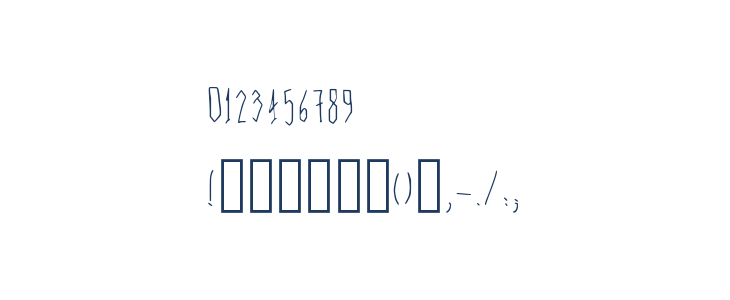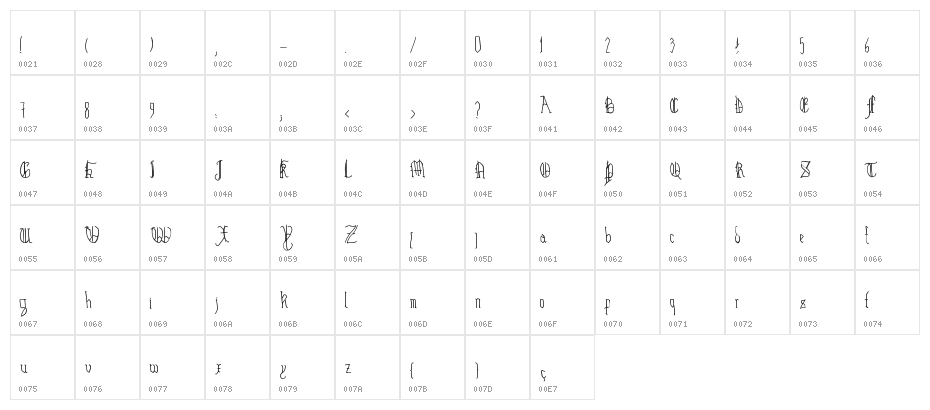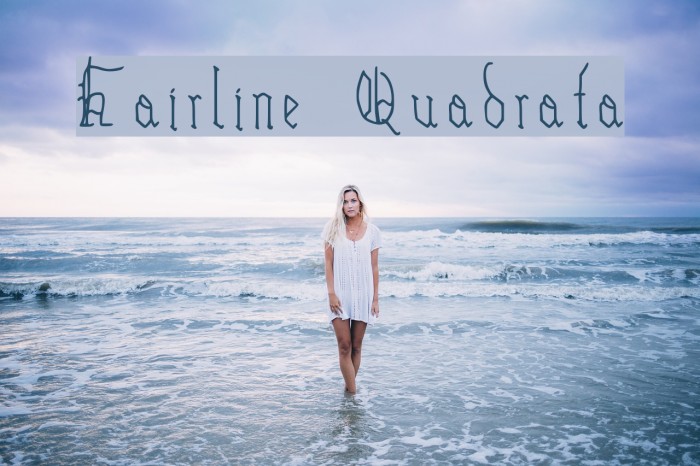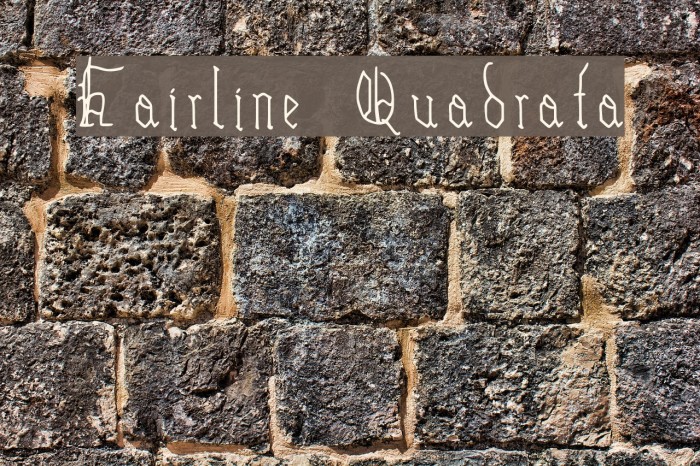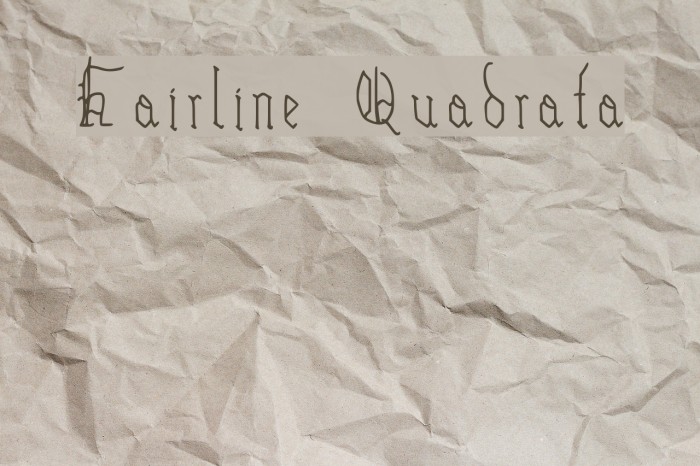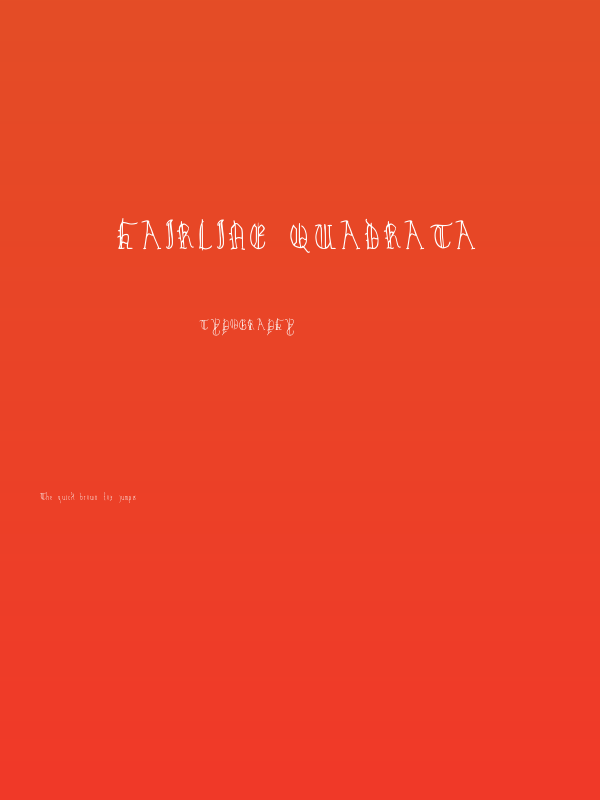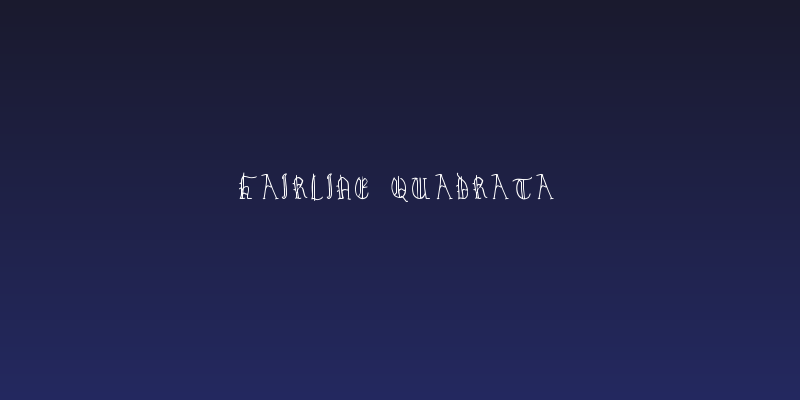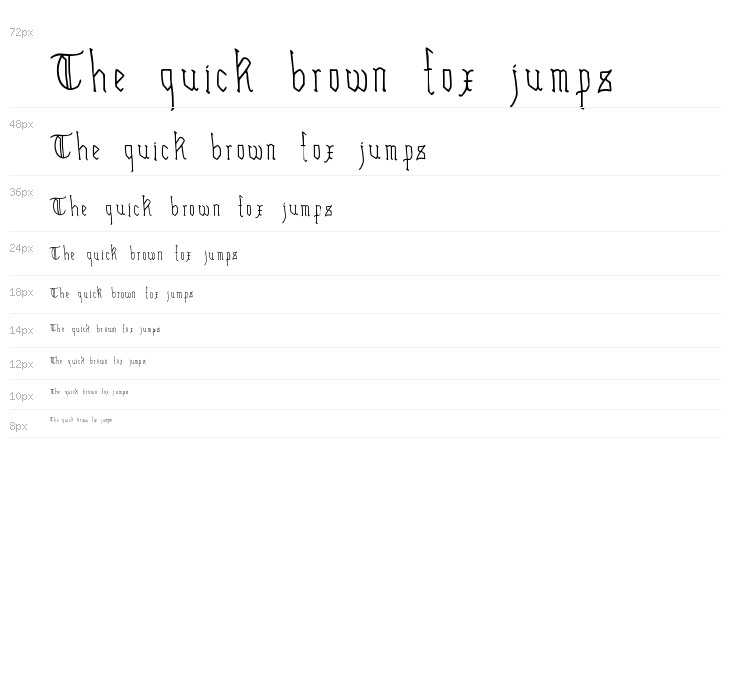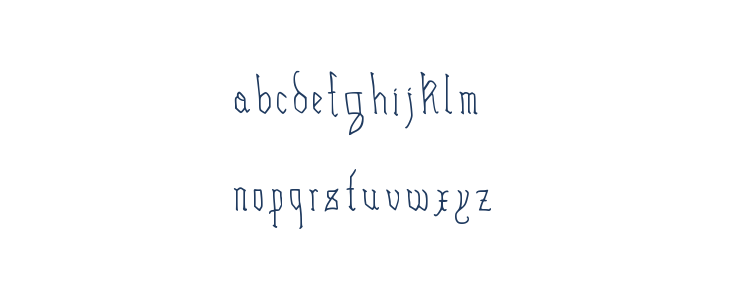
Hairline Quadrata Font
Hairline Quadrata Description
This font exhibits a distinctive blackletter style with a modern twist, characterized by its sharp, angular lines and intricate detailing. The uppercase letters are bold and commanding, with a gothic influence that is evident in the pointed serifs and elaborate curves. The lowercase letters maintain a consistent style, offering a harmonious balance between readability and decorative flair. Numbers and special characters are designed to complement the overall aesthetic, making them suitable for a variety of creative applications. The font's unique design is both eye-catching and versatile, ideal for projects that require a touch of elegance and historical charm.
Use CaseLogos, Headlines, Decorative text
Proposed ProjectsIdeal for branding, posters, book covers, and any project requiring a gothic or historical aesthetic.